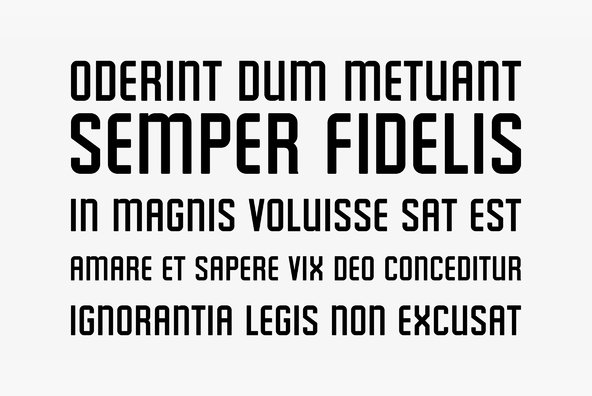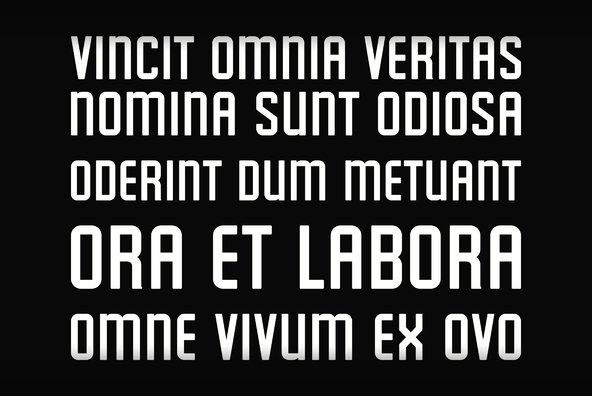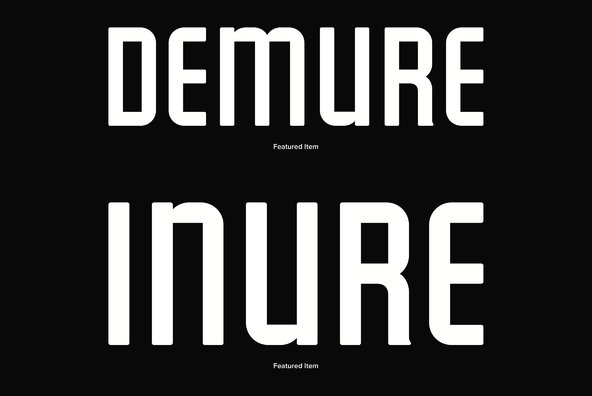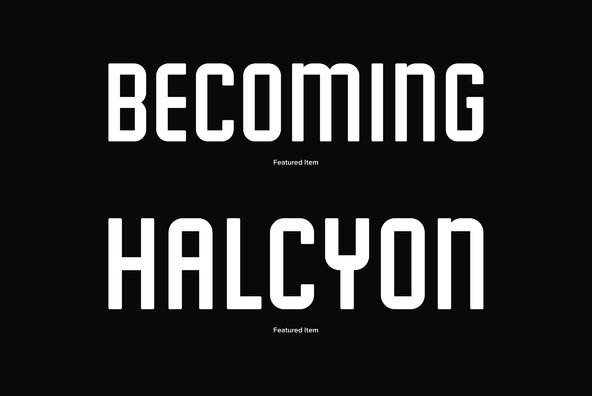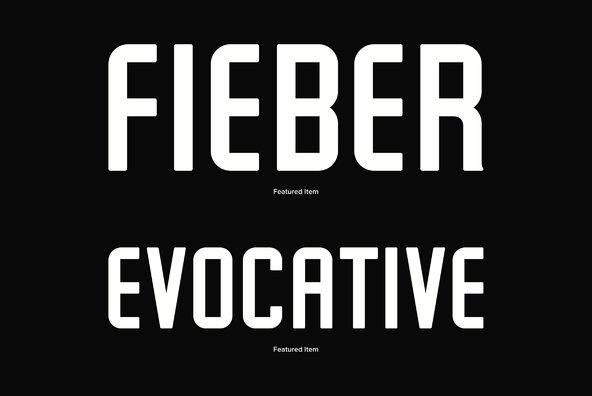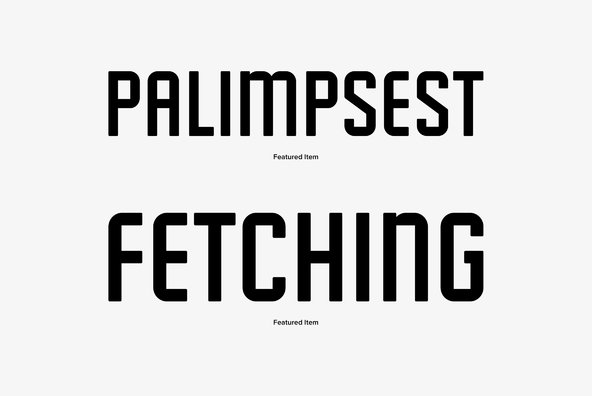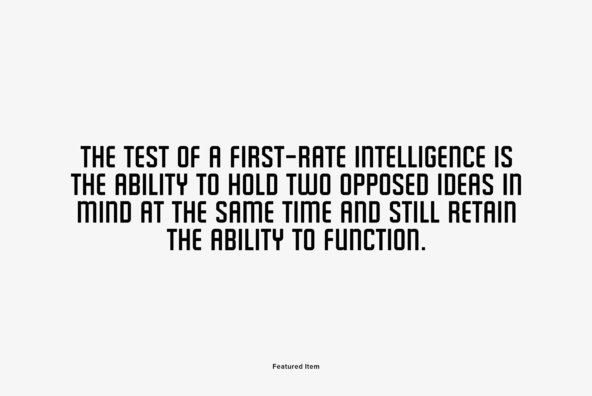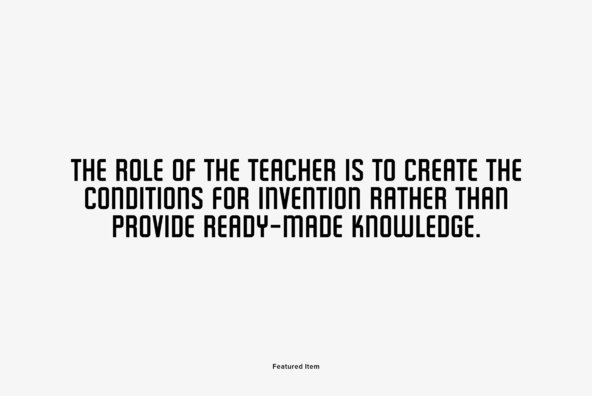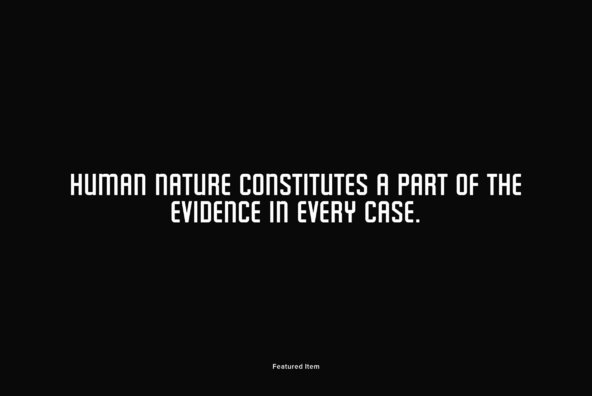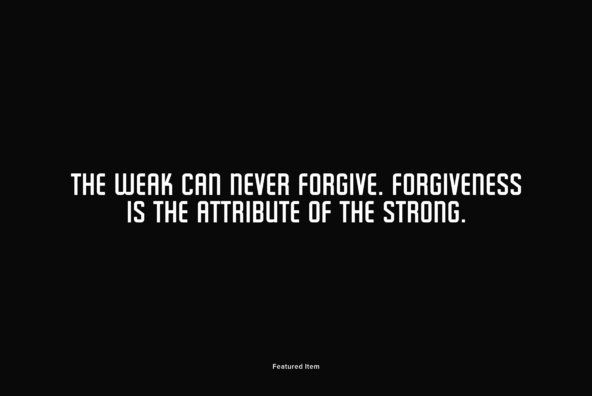
Found at Timeless Treasures in San Francisco - This font was revived from pinback ceramic letters from a 1940s department store marquee, introduce all your featured items with this deco style gem!